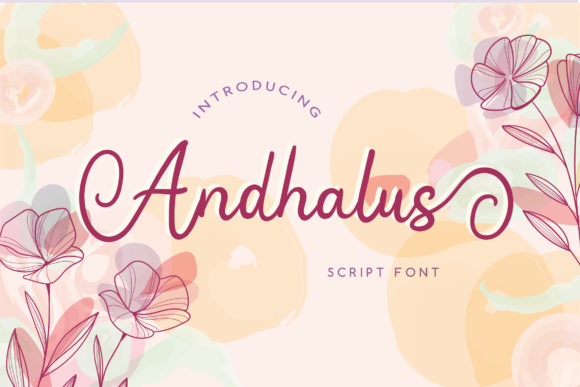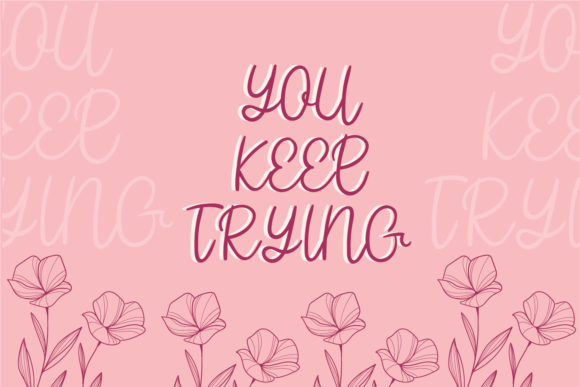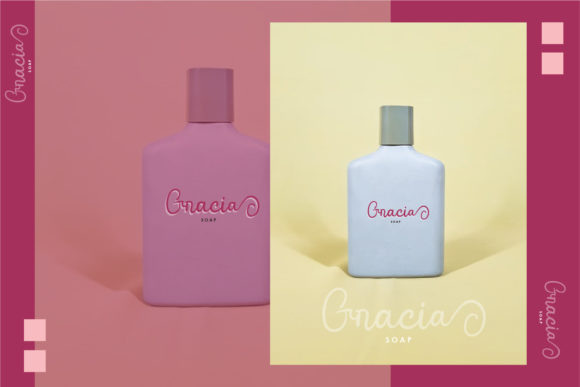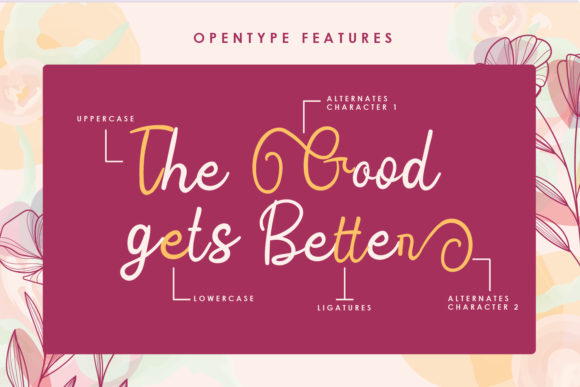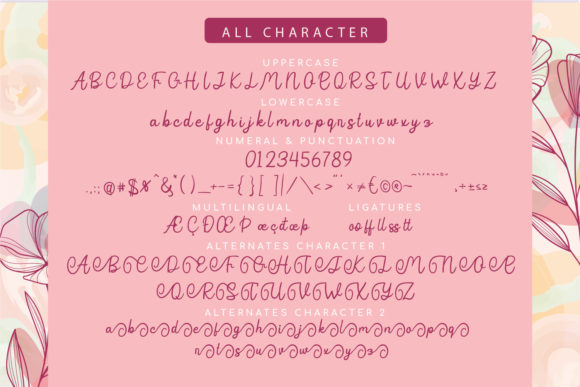
Andhalus Font
About Andhalus Font
Andhalus, a delicate and stylish script font, graces the design landscape with its beautiful and balanced character, seamlessly fitting into a vast design pool. This font, encoded with PUA, opens up a world of possibilities, providing easy access to its myriad glyphs and swashes.
The elegance of Andhalus shines through in its graceful curves and thoughtful design. Each character is a testament to the meticulous craftsmanship that went into creating this font, ensuring a harmonious and visually appealing result. Its versatility allows it to seamlessly integrate into various design contexts, making it a valuable asset for designers.
With PUA encoding, Andhalus becomes even more versatile. Designers can effortlessly explore the extensive range of glyphs and swashes, customizing their projects with ease. This functionality empowers creativity, allowing for a personalized touch that enhances the overall aesthetic of any design.
Andhalus is more than just a font; it’s a design companion that adds a touch of sophistication to logos, branding projects, invitations, stationery, and various other creative endeavors. Its delicate and stylish demeanor sets it apart, making it a standout choice for those seeking a font that effortlessly blends beauty and balance.
In essence, Andhalus is a visual symphony, a carefully crafted script font that not only meets but exceeds the expectations of designers looking to infuse their projects with elegance and style.